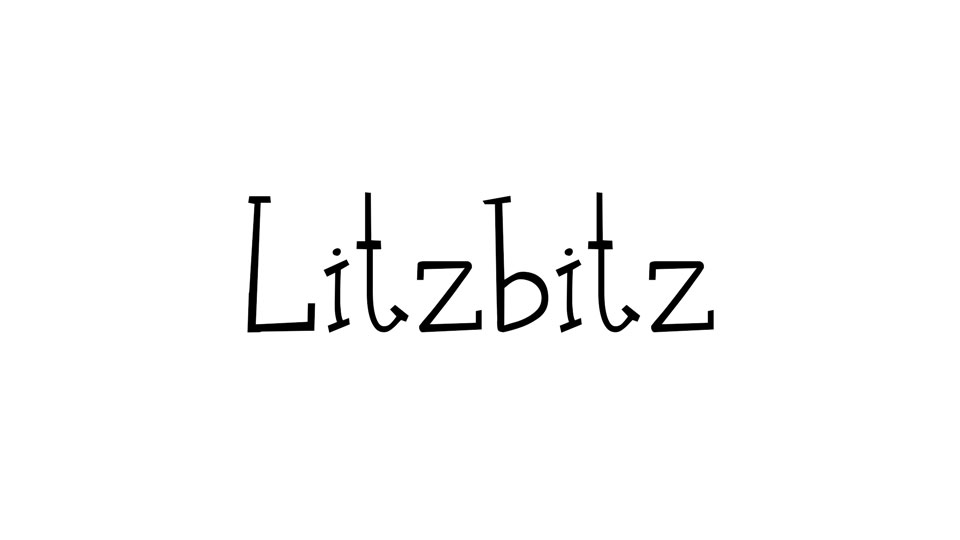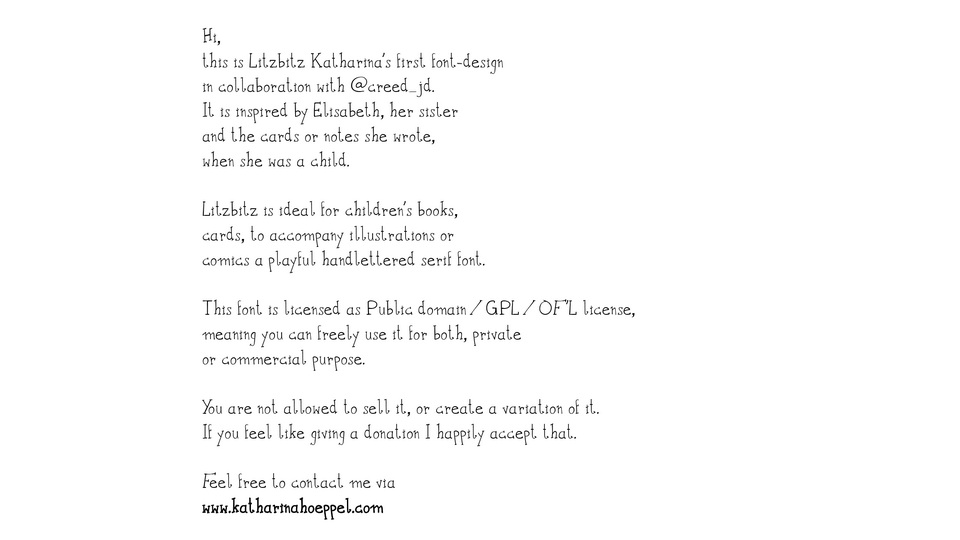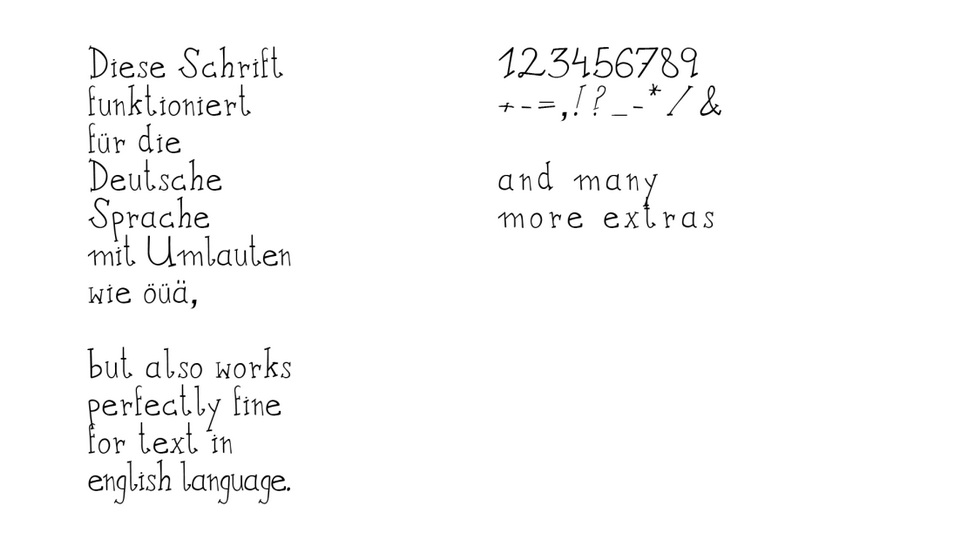
Litzbitz is a font design inspired by the memory of the designer’s sister’s handwriting, when they were children. It is developed in collaboration with the experienced font-designer Muhammad Junaid, who digitized my hand lettered drafts & sketches.
It is ideal for greeting cards, calendars, book designs/covers. A playful and joyfully designed hand-lettered serif-font. Litzbitz is licensed as Public Domain/GPL/OFL.